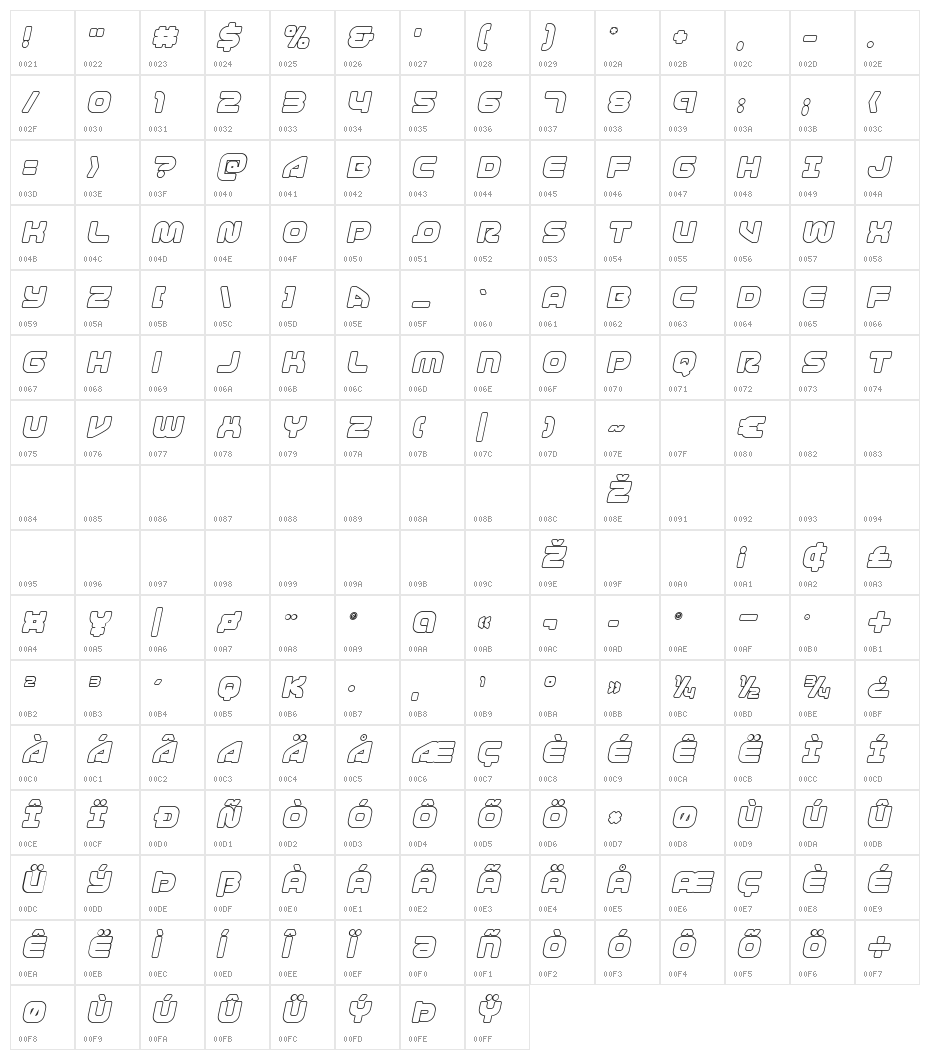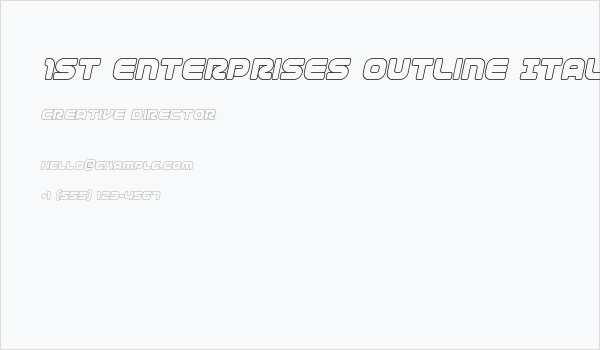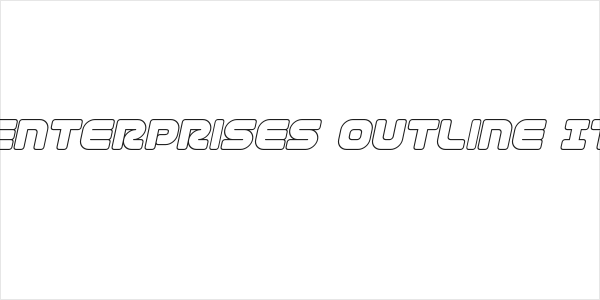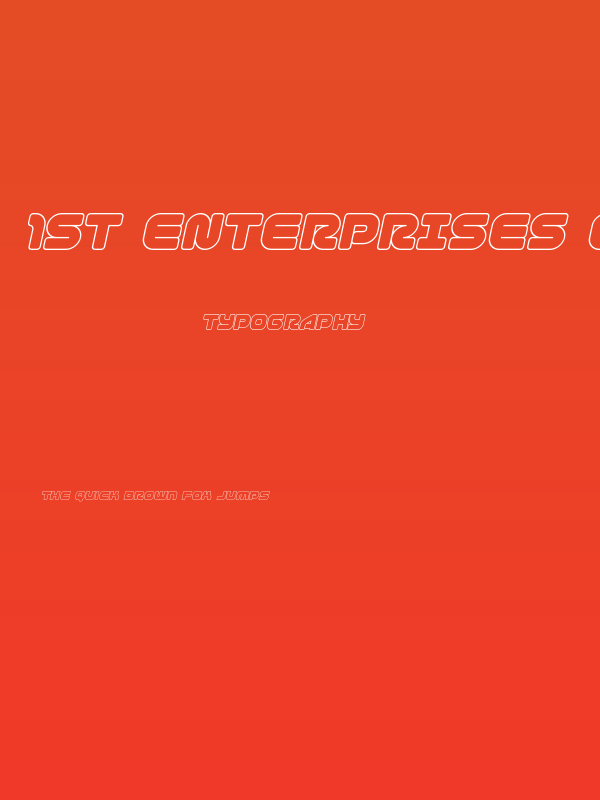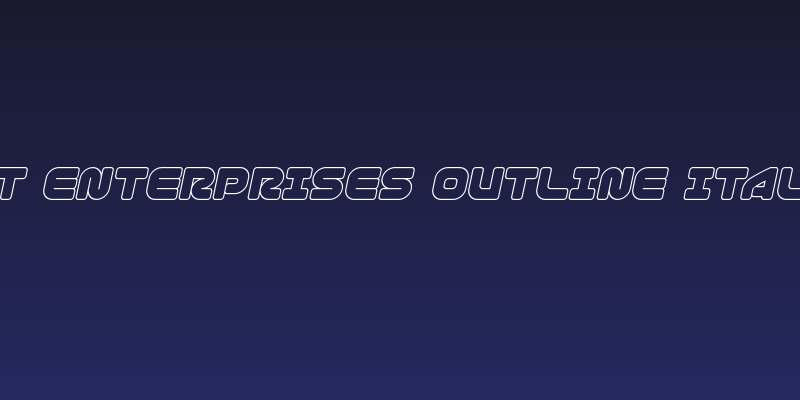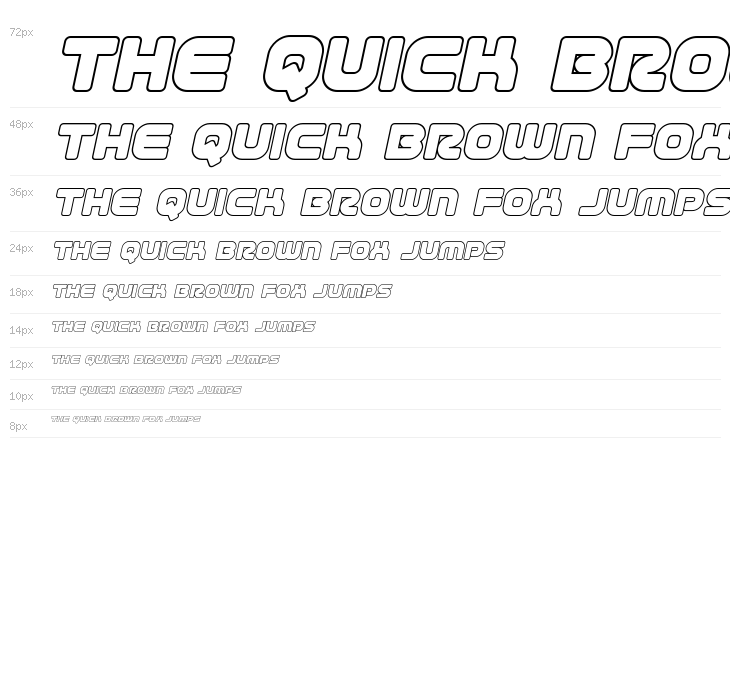
1st Enterprises Outline Italic Font
1st Enterprises Outline Italic Description
This font features a bold, outlined style with a futuristic and modern appeal. The characters are italicized, giving them a dynamic and forward-leaning appearance. Each letter and number is crafted with a consistent outline thickness, creating a uniform look across the entire set. The uppercase and lowercase letters maintain a similar height, enhancing readability while preserving the unique style. The numbers and special characters are designed to match the overall aesthetic, making this font versatile for various design needs. Its clean lines and geometric shapes make it suitable for projects that require a contemporary and eye-catching typeface.
| Proposed Projects | Ideal for branding, logos, posters, and digital media that require a modern and dynamic look. |